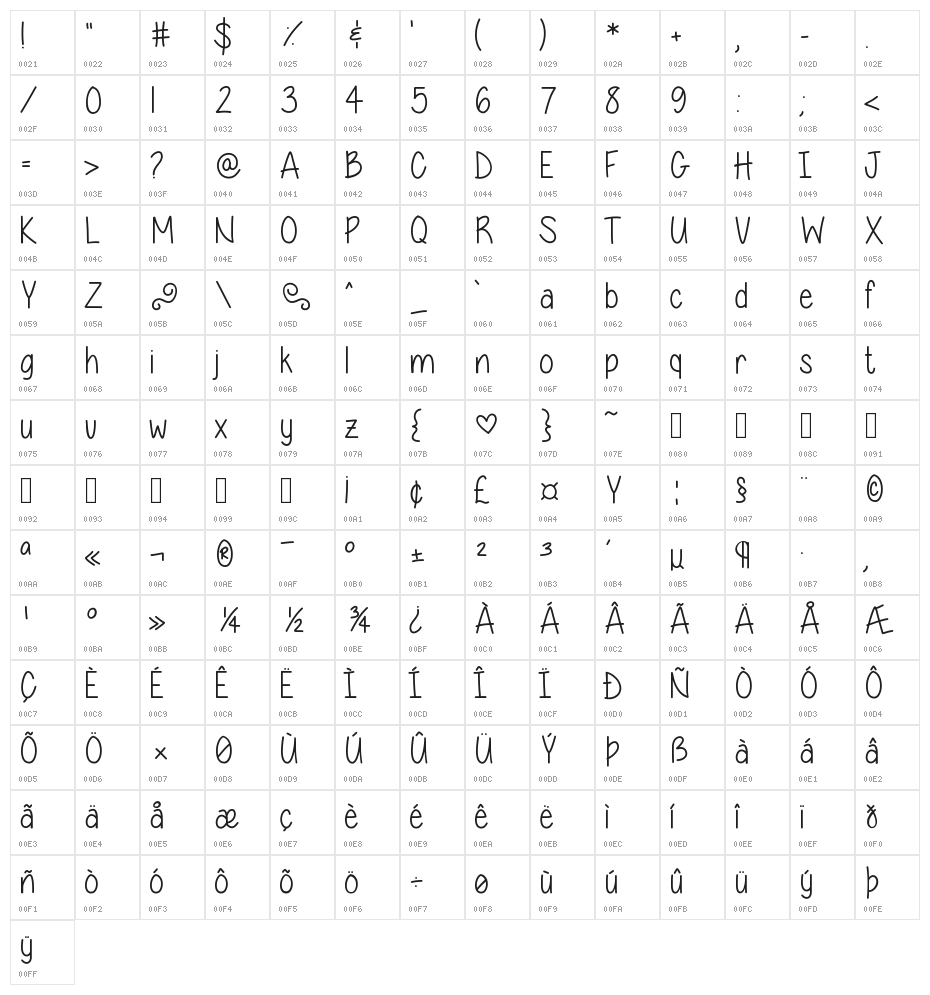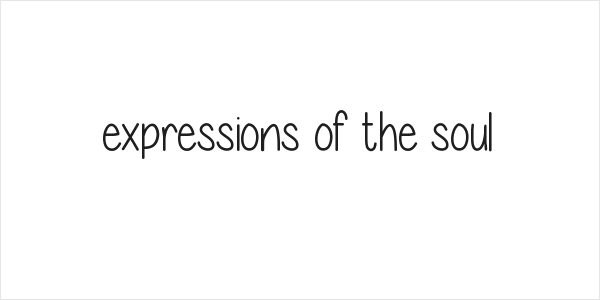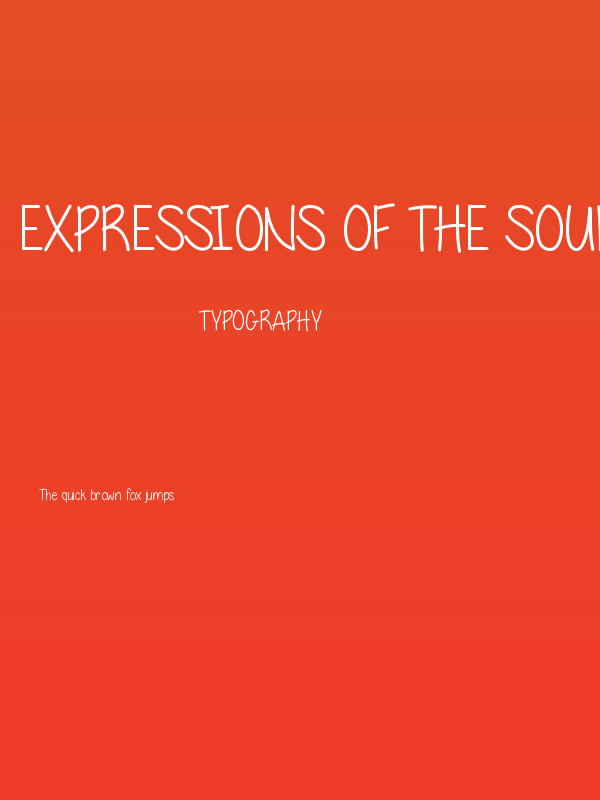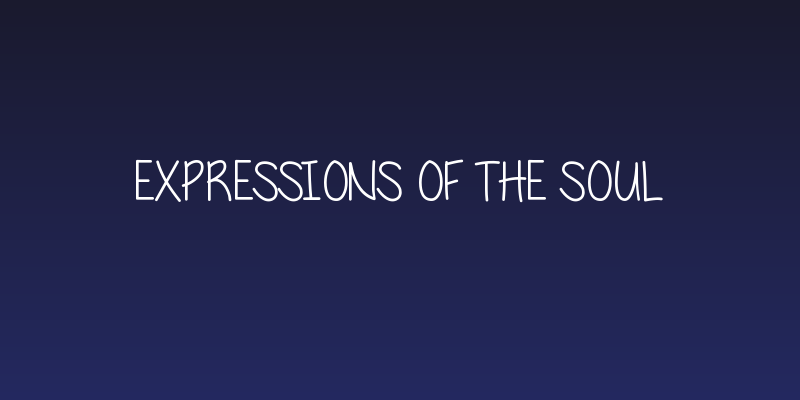
expressions of the soul Font
expressions of the soul Description
This font features a playful and casual handwritten style, characterized by its smooth, rounded edges and slightly irregular letterforms. The uppercase and lowercase letters maintain a consistent height, giving it a uniform appearance. The numerals and special characters follow the same playful aesthetic, making it suitable for informal and creative projects. The strokes are consistent in width, providing a balanced and approachable look. This font exudes a friendly and inviting vibe, perfect for projects that aim to convey warmth and personality.
| Use Case | Logos, Headlines, Informal Text |
| Proposed Projects | Ideal for greeting cards, children's books, casual branding, and social media graphics. |